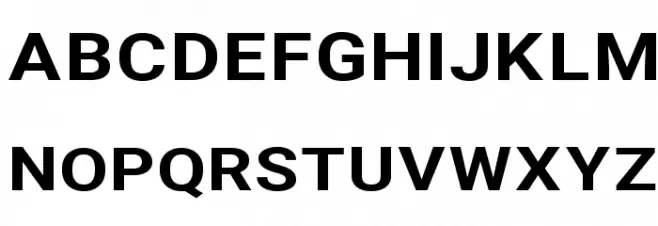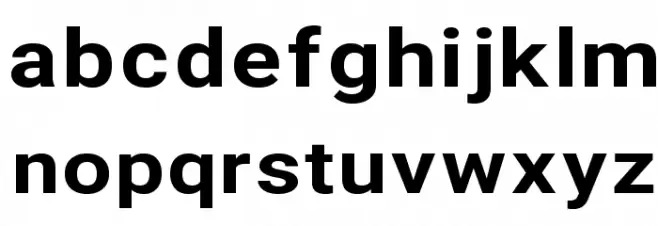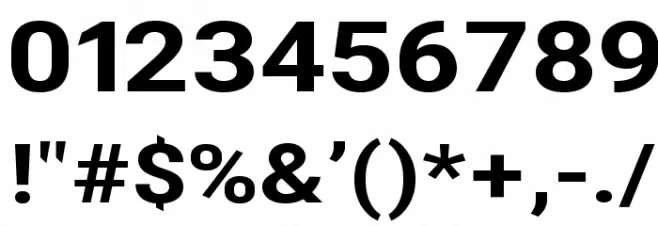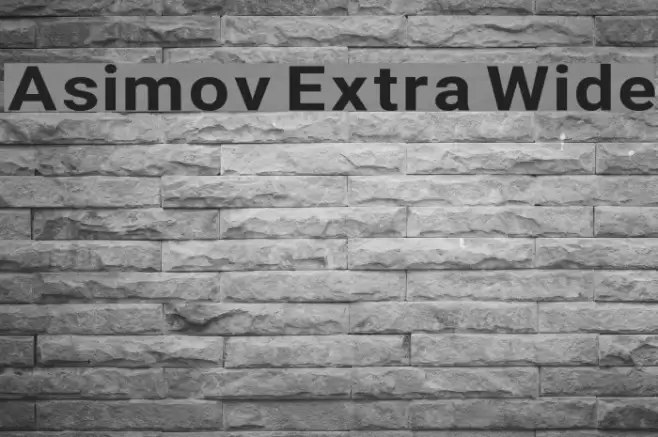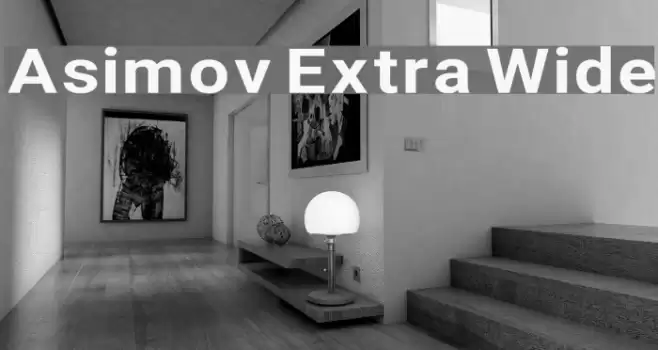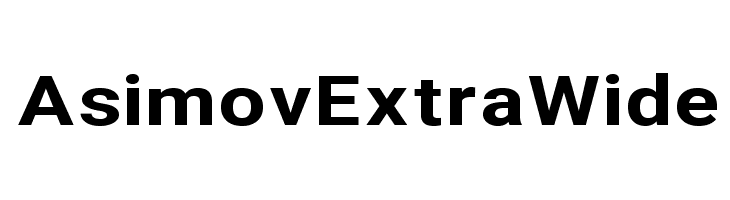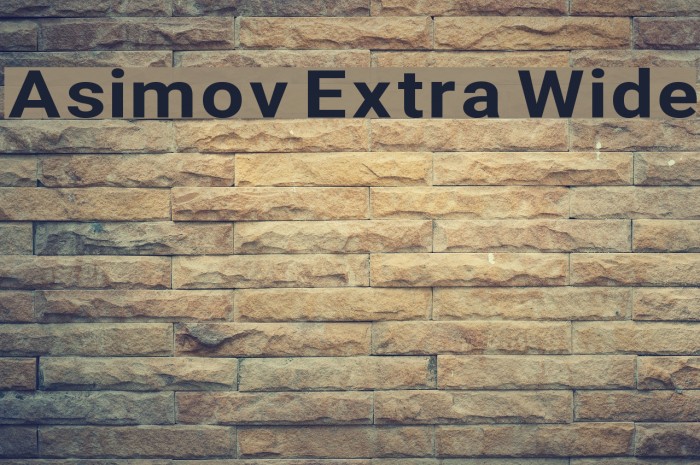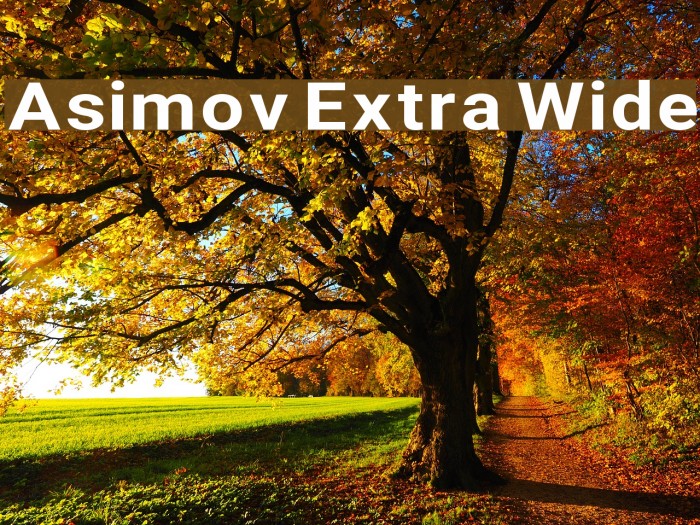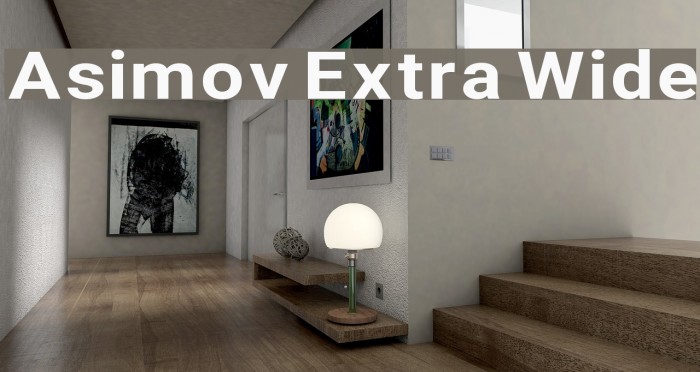
Asimov Extra Wide
This typeface features a bold and expansive design, characterized by its wide letterforms and strong presence. The uppercase and lowercase letters maintain a consistent thickness, contributing to a uniform appearance across the alphabet. The numerals are equally bold, ensuring readability and impact. Special characters are designed with clarity and simplicity, making them easily distinguishable. The overall style is modern and assertive, suitable for making statements in various design contexts.
A bold, wide typeface with a modern and assertive style.
- Proposed Projects: Ideal for headlines, posters, branding materials, and any project requiring a strong visual impact.
- Width: Expanded
- Use Case: Headlines, Logos, Posters